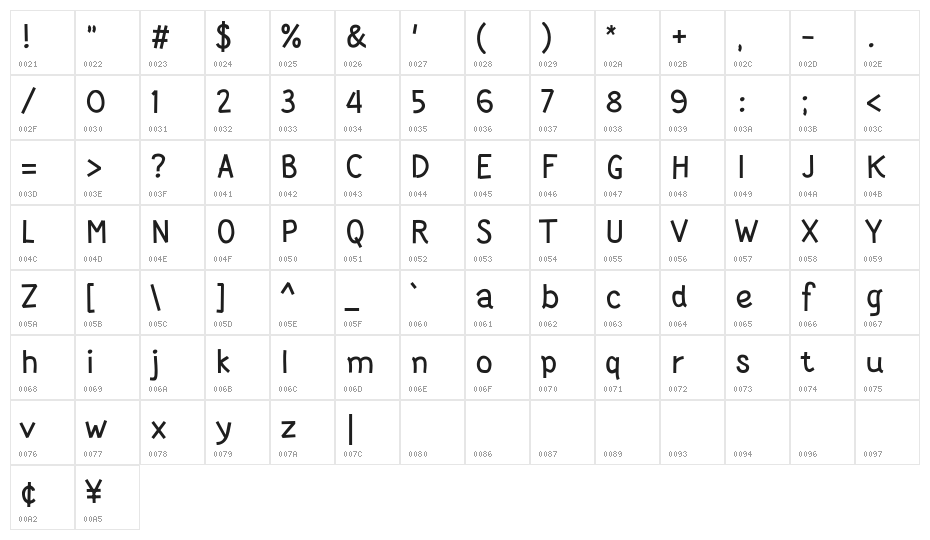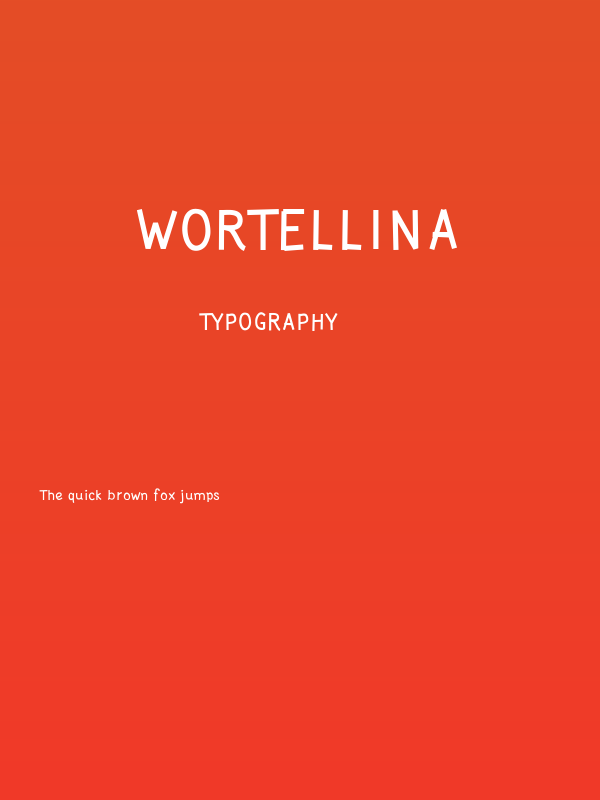
Wortellina Font
Wortellina Description
This font features a playful and slightly irregular style, characterized by its hand-drawn appearance. The letters have a casual, friendly look with a slight tilt and varying stroke widths, giving it a dynamic and lively feel. The uppercase letters are bold and prominent, while the lowercase letters maintain a consistent flow with rounded edges. The numerals are clear and easy to read, matching the overall whimsical aesthetic. Special characters are well-integrated, maintaining the font's unique charm. This font is versatile, suitable for projects that require a personal touch or a creative flair.
| Overall Style | Playful, Casual |
| Proposed Projects | Ideal for children's books, greeting cards, playful branding, and creative posters. |